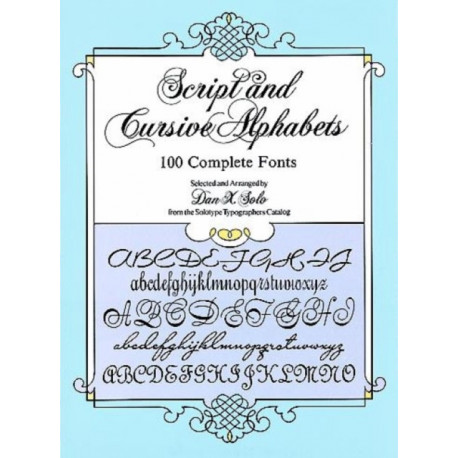
Includes the flowing elegance of Liberty; the sturdy formality of Piranesi Bold Italic; the airy Art Deco flair of Hannover; and more. Many include upper- and lower-case alphabets, plus numerals.